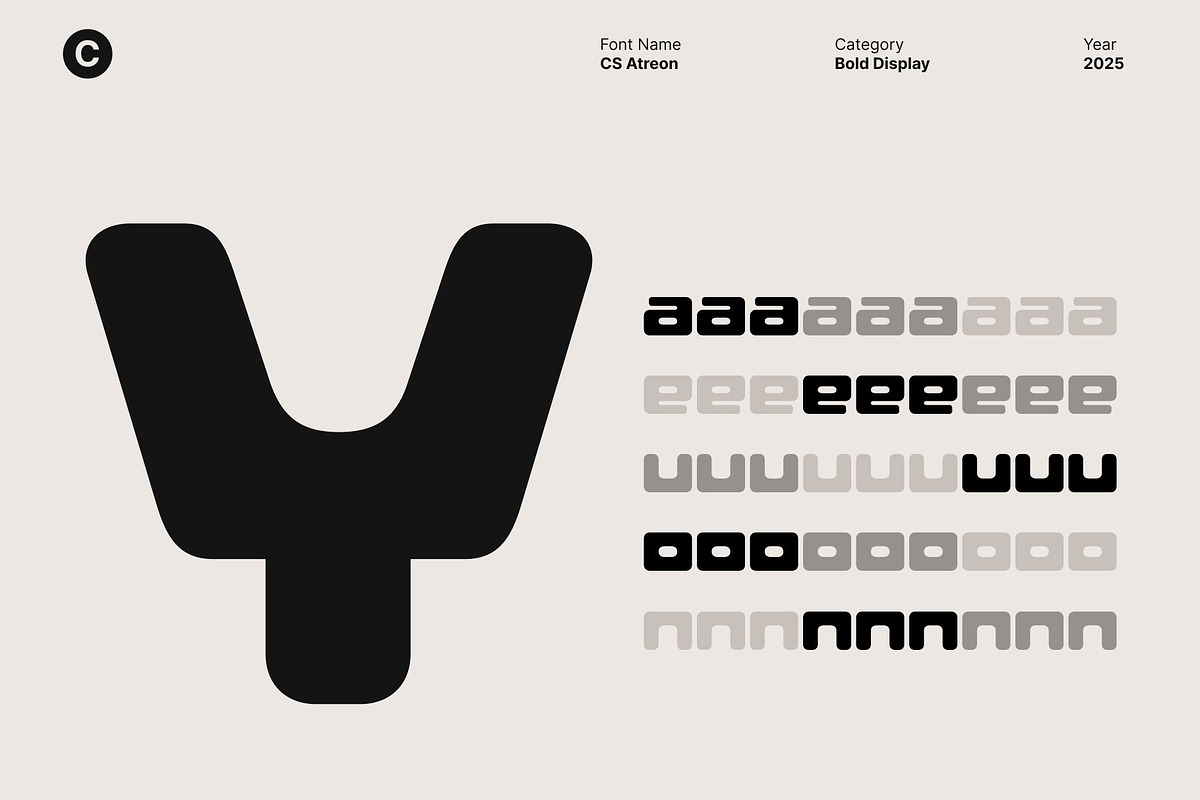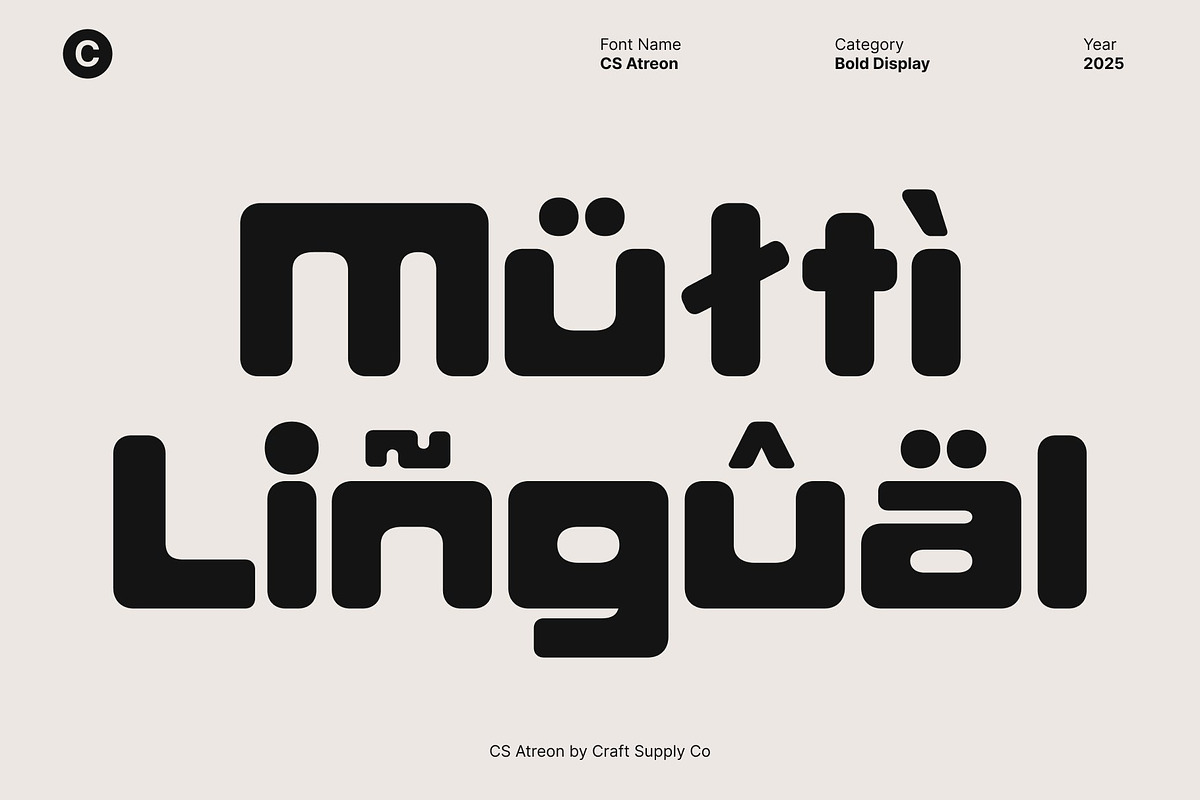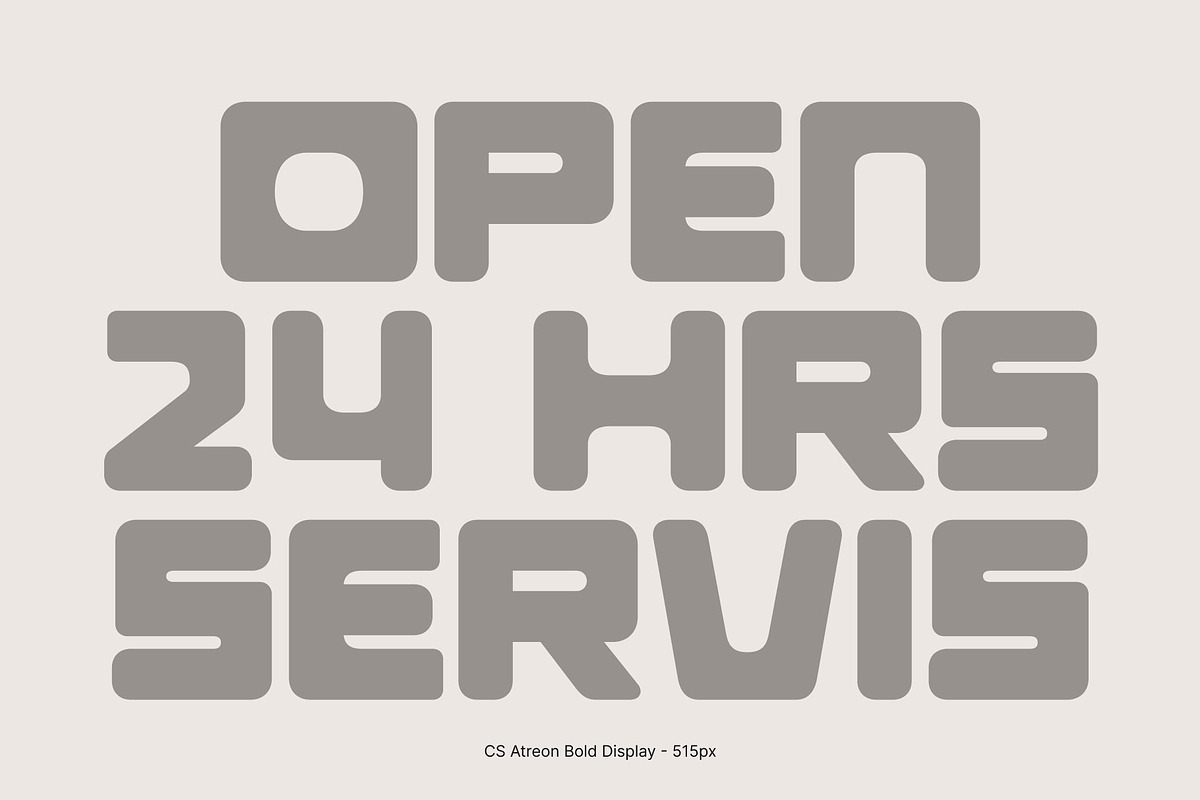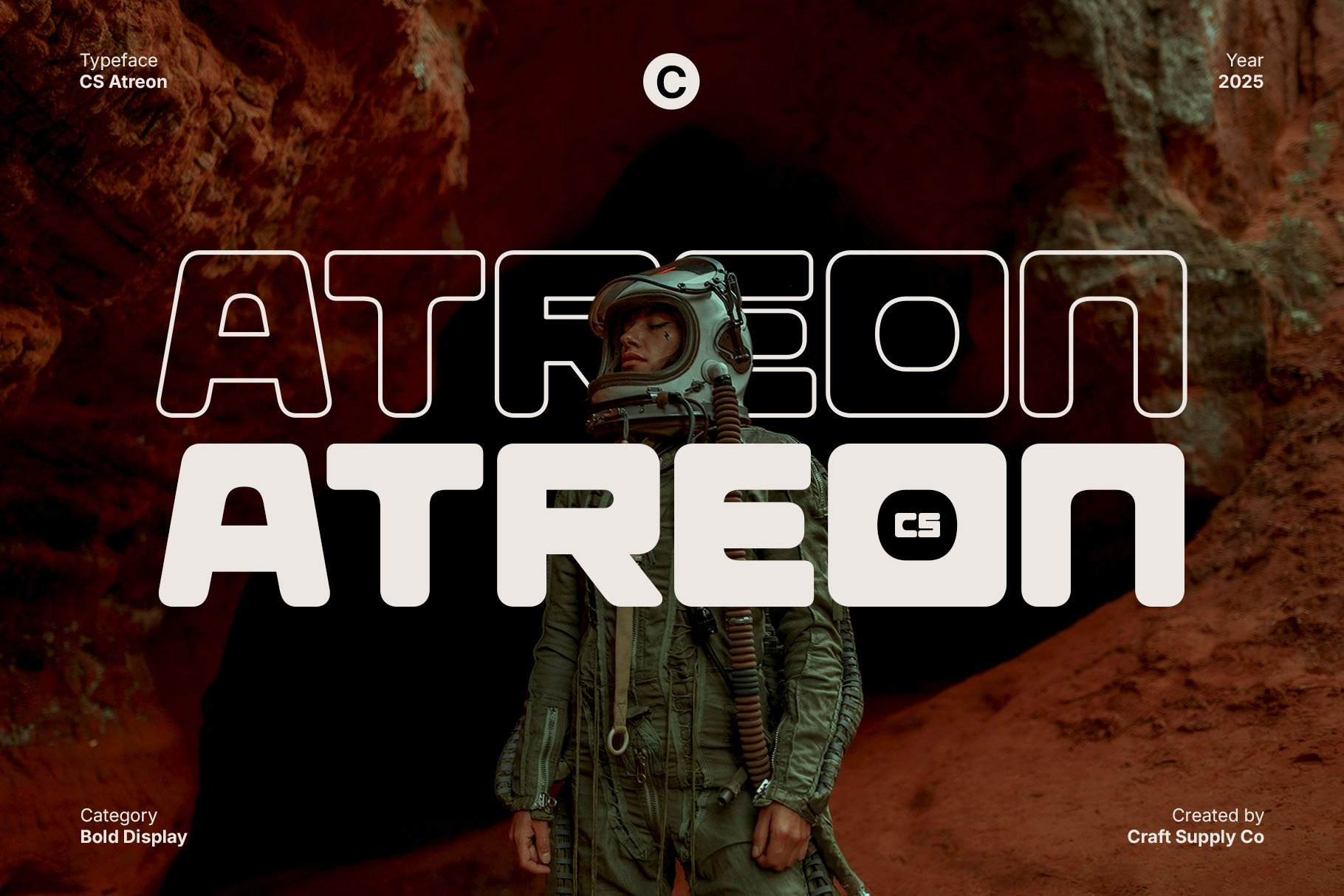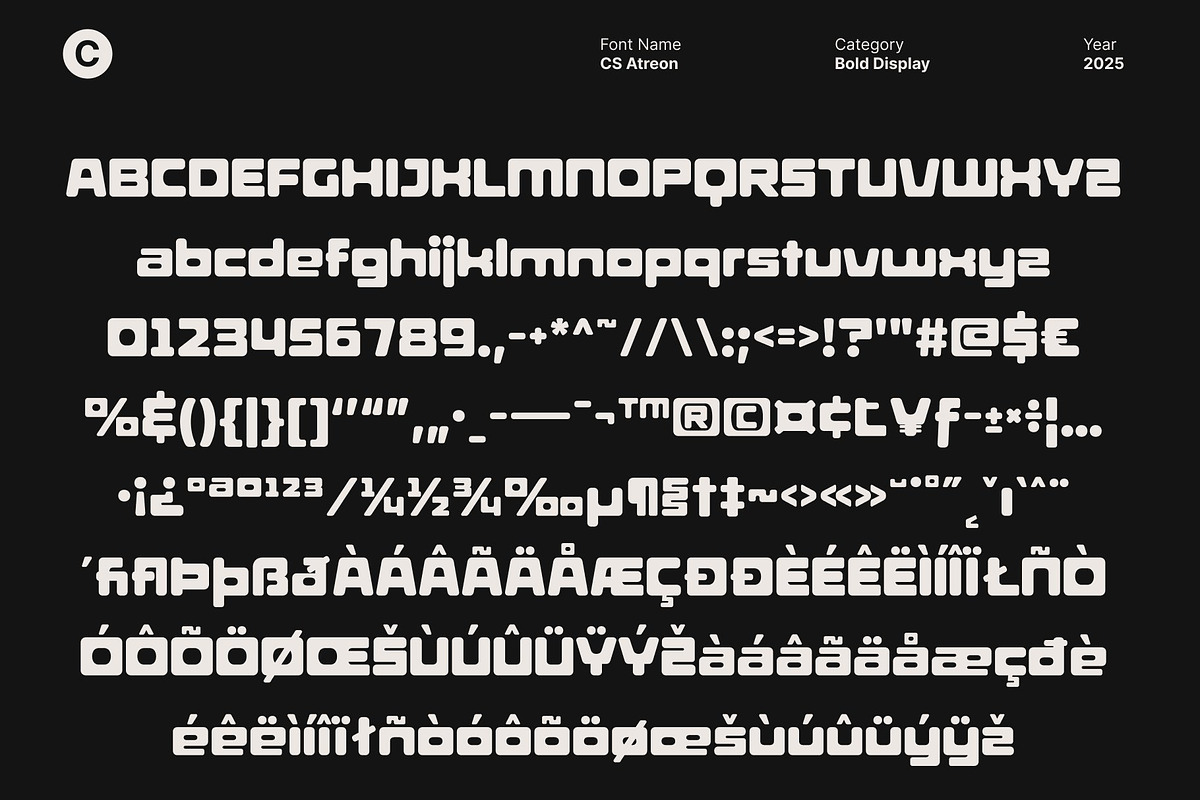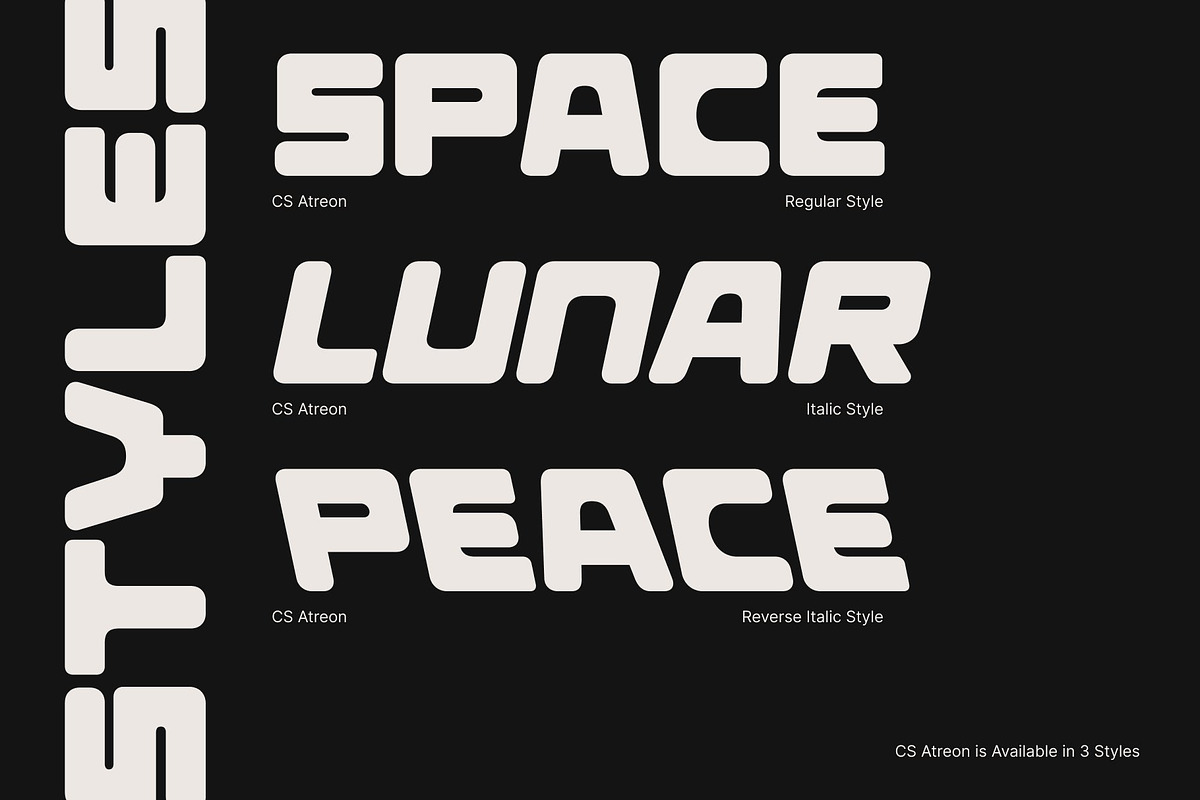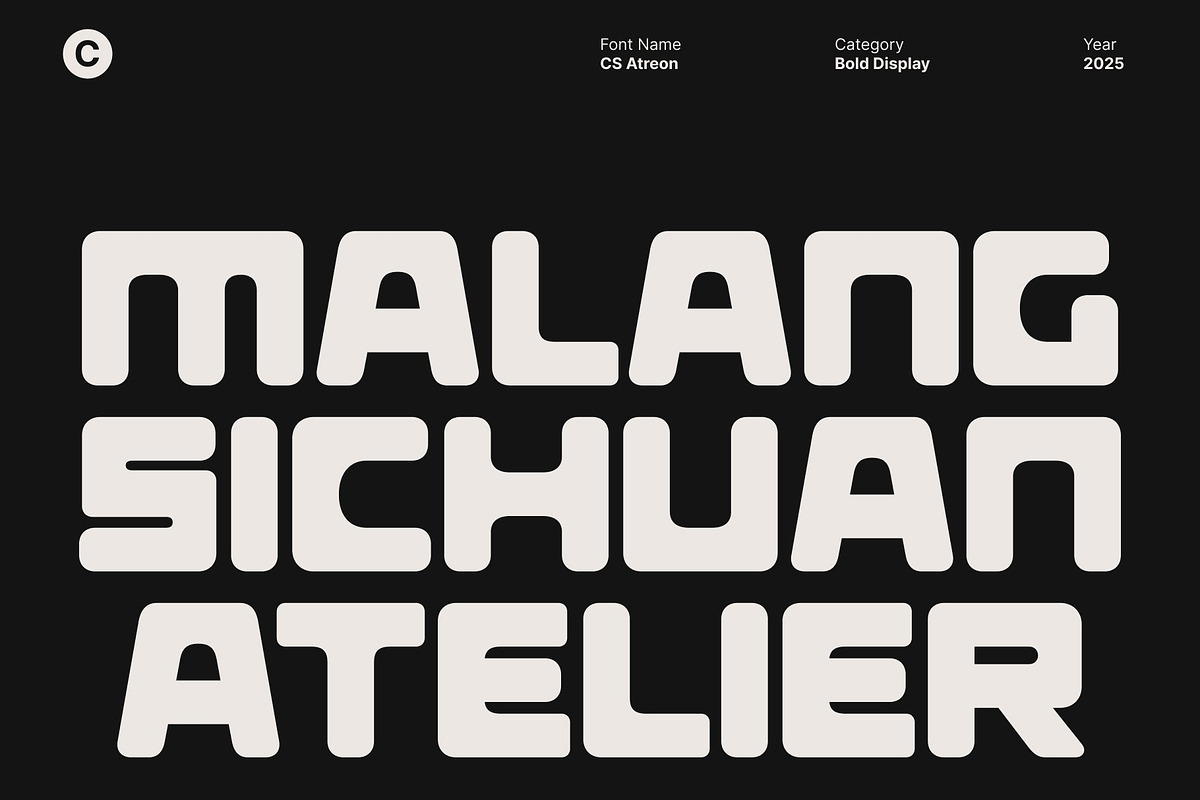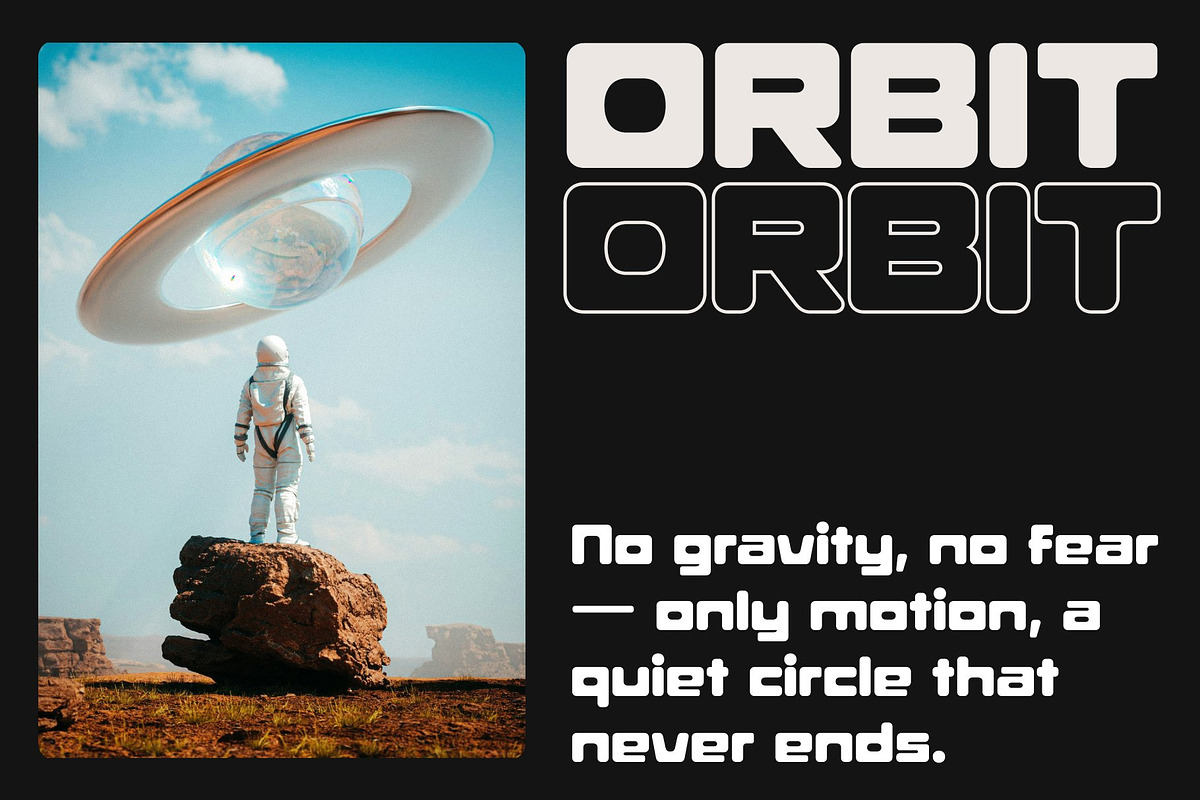
CS Atreon – Bold Display Font
CS Atreon – Futuristic Power with Geometric Precision
Bold Display Sans Serif for Maximum Impact This is a bold display sans serif font built to make a statement. Designed for attention and clarity, it combines solid geometric forms with futuristic flair, creating a powerful typographic presence that stands out in any visual composition.
Geometric Structure with Futuristic Style Each letter in this font reflects precision and modernity through its structured geometry and sleek lines. The futuristic influence gives it a forward-looking aesthetic, making it ideal for tech-inspired projects, digital media, and contemporary branding.
Expressive and Eye-Catching Design This font balances strength with style, offering expressive character while maintaining readability. Its bold forms and clean angles make it perfect for commanding headlines, impactful posters, and statement making designs that demand attention.
Perfect for Modern Branding and Digital Visuals From futuristic branding to digital campaigns and editorial layouts, this font delivers a cutting-edge look. Its bold geometry and innovative design make it an essential choice for projects that seek to express confidence, modernity, and creative power.